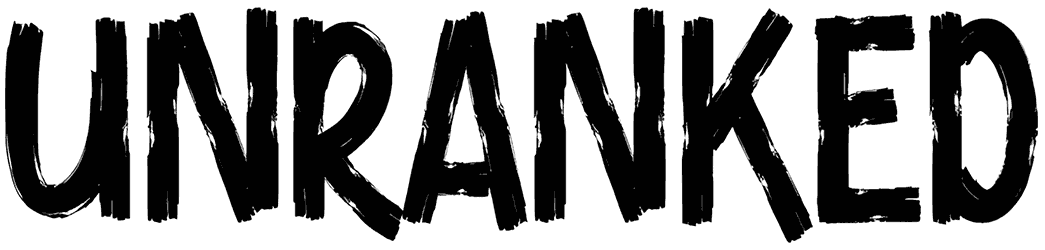
Unranked Font
Here we come again with a smudgy all-caps eroded font, such as the Unranked, that carries a sense of dynamic, tenderness, grunge, and jauntiness.
Aside from not fully supporting numbers, since this masterpiece looks too captivating, it can be one of your first options in the realm of designing high-end graphic content, including social media posts, magazines, video game brochures, stickers, or book covers. Don’t forget to visit the RB collection to find many products the same to this one.